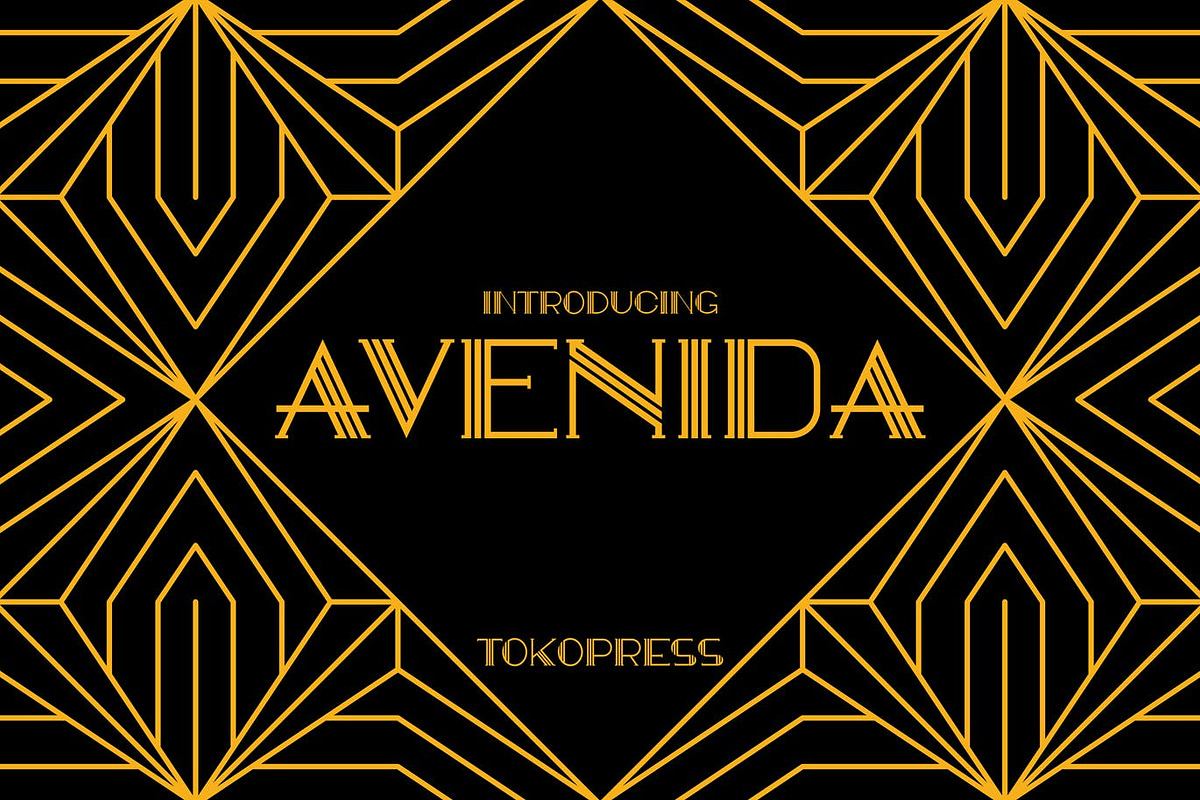
AVENIDA - Art Deco Font Free Download is a stylish and elegant typeface inspired by the iconic Art Deco movement. With its geometric shapes, sleek lines, and luxurious feel, this font is perfect for creating sophisticated logos, branding materials, event invitations, and retro-inspired designs. Its timeless appeal and bold design make it ideal for high-end projects that require a vintage touch with a modern edge. Whether you're working on a chic magazine cover, luxury brand identity, or an elegant advertisement, AVENIDA - Art Deco Font Free Download allows you to experiment with its refined design in personal projects before purchasing a commercial license. Add a touch of glamour and refinement to your designs with this beautifully crafted Art Deco font.